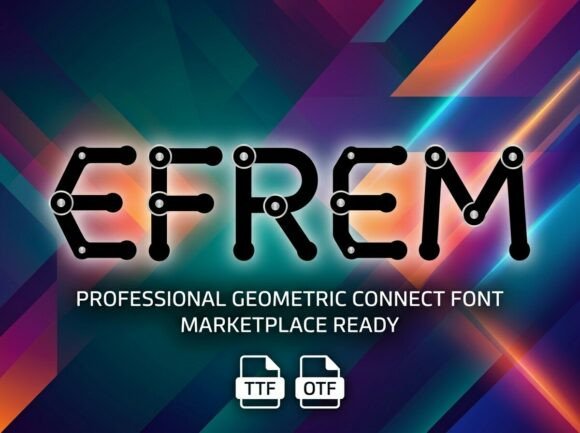
Introducing Efrem Font: The Ultimate Decorative Display Font for Creative Minds
Are you tired of using the same old fonts for your creative projects? Look no further than Efrem Font, a stunning decorative display font designed to grab attention and make a statement. With its unique artistic elements and strong visual personality, this font is perfect for creators who want to break away from the ordinary and add a touch of elegance to their work.
What Makes Efrem Font So Special?
Efrem Font is a versatile decorative font that is specifically designed for bold headlines, artistic logos, and creative packaging. Its unique artistic elements and strong visual personality make it perfect for a wide range of creative projects, from branding and advertising to packaging and editorial design.
One of the standout features of Efrem Font is its ability to add a touch of sophistication and elegance to any design project. Its polished finish and professional-grade quality make it perfect for creators who want to produce high-quality work that stands out from the crowd.
Before purchasing Efrem Font, it’s essential to note that this font is an ALL-CAPS (Uppercase Only) display typeface. This means that it does not include lowercase letters, making it specifically designed for high-impact headlines, logos, and decorative initials where every letter is a work of art.
This unique feature allows designers to create stunning visual displays that are sure to grab attention. Whether you’re designing a bold headline, a striking logo, or decorative packaging, Efrem Font is the perfect choice.
Efrem Font is perfect for designers and crafters who want to add a touch of elegance and sophistication to their work. Whether you’re a professional designer or a DIY crafter, this font is versatile enough to meet your needs.
Use Efrem Font to:
- Create stunning headlines and titles that grab attention
- Design artistic logos and branding materials that stand out
- Develop creative packaging solutions that showcase your product
Why Choose Efrem Font?
With so many fonts available, why choose Efrem Font? Here are just a few reasons:
- Unique Artistic Elements: Efrem Font features unique artistic elements that set it apart from other fonts.
- Strong Visual Personality: This font has a strong visual personality that is sure to make a statement.
- Professional-Grade Quality: Efrem Font is designed to meet the highest standards of professional design.
- Versatility: Use Efrem Font for a wide range of creative projects, from branding and advertising to packaging and editorial design.
In conclusion, Efrem Font is a stunning decorative display font that is perfect for creators who want to break away from the ordinary and add a touch of elegance to their work. With its unique artistic elements, strong visual personality, and professional-grade quality, this font is versatile enough for bold headlines, artistic logos, and creative packaging.